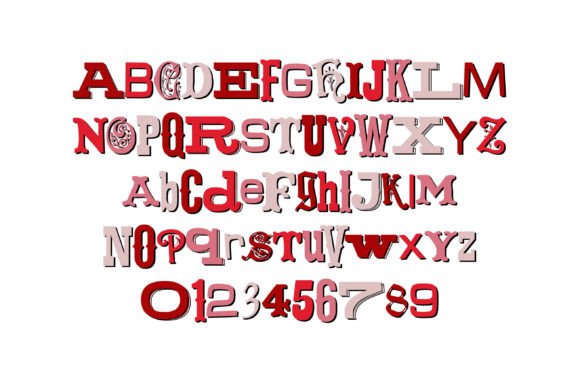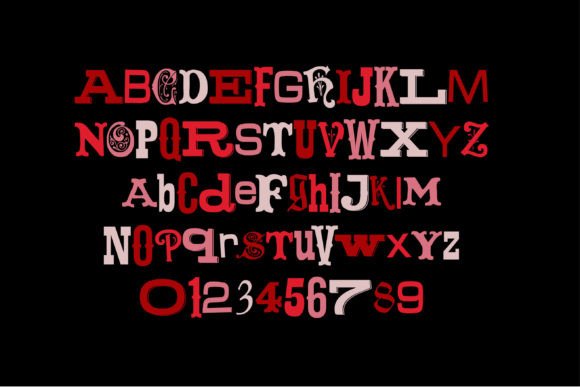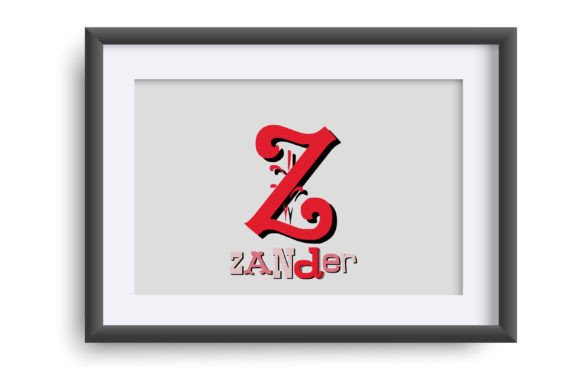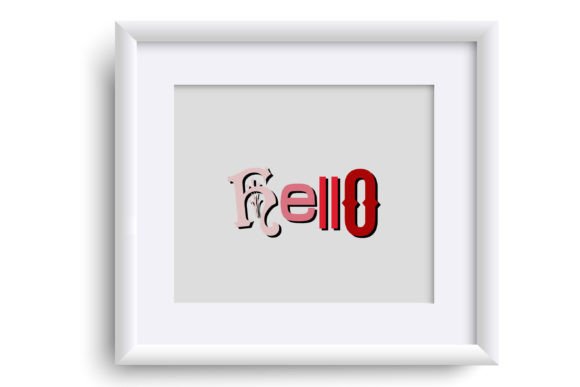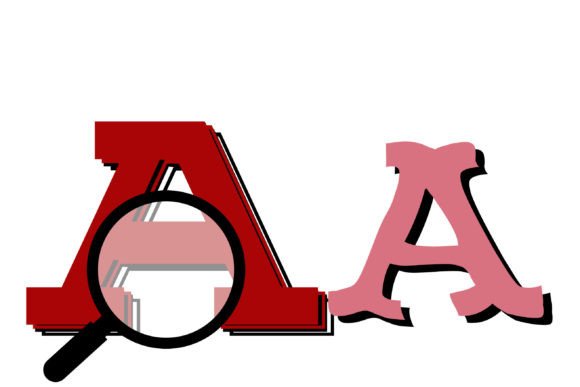
Introduction to Mixy Moonstruck Font
You’ve finally landed that dream design project, and you’re itching to make a statement. The client wants something unique, something that stands out from the crowd. As you start brainstorming ideas, you stumble upon the perfect solution: the captivating Mixy Moonstruck Font. With its vibrant colors and creative letterforms, this font is the ultimate design resource for anyone looking to add a touch of personality and visual interest to their projects.
As a designer, you know the importance of having high-quality fonts at your disposal. The Mixy Moonstruck Font is a game-changer, offering a level of versatility that’s hard to find in other fonts. Whether you’re working on a creative project with a transparent background or need a bold statement for your next campaign, this font is sure to shine.
Key Features of Mixy Moonstruck Font
- Unique, hand-drawn design perfect for creative projects and artistic expressions.
- High-quality font with a transparent background, ideal for graphic designers and digital artists.
- Designed to be highly scalable, with optimal results at resolutions up to 300 DPI.
- Perfect for use in a variety of creative projects, including digital art, graphic design, and web design.
- Comes with a comprehensive character set, including uppercase and lowercase letters, numbers, and punctuation marks.
Honest Review: Mixy Moonstruck Font
As a designer, I’m always on the lookout for high-quality design resources to elevate my creative projects. Recently, I stumbled upon the Mixy Moonstruck Font, and I must say, it’s been a game-changer for me.
What works well: ✨ The font is incredibly versatile and can be used for a wide range of design applications, from headings to body text. The bold and playful style makes it perfect for creating eye-catching titles and logos. Additionally, the transparent background option allows for seamless integration with other design elements.
What’s not so great: ⚠️ The font may not be suitable for formal or professional projects, as its whimsical nature can come across as unprofessional. Furthermore, the font file size is relatively large, which may slow down loading times.
- High-quality design with a playful and bold style
- Transparent background option for seamless integration
- Wide range of design applications, from headings to body text
Experiment with different font sizes and colors to create a visually appealing design. Use the font in combination with other design elements, such as graphics and images, to add depth and interest to your project.
The Mixy Moonstruck Font is ideal for creative projects, such as invitations, posters, and social media graphics. It’s also perfect for use in free download resources, like templates and design assets.